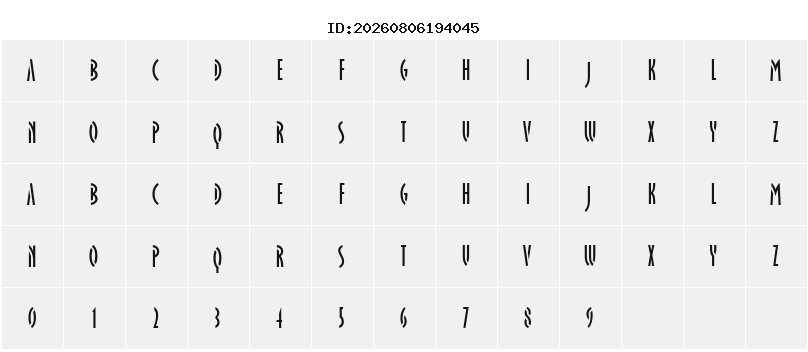
OklahomaSoft-Stencil Preview
• Font Name: OklahomaSoft-Stencil
• Full Font Name: OklahomaSoft-Stencil
• Version: Version 1.00 April 20, 2006, initial release
• Designer: SoftMaker Software GmbH
• Manufacturer: SoftMaker Software GmbH
About OklahomaSoft-Stencil.ttf
OklahomaSoft-Stencil.ttf is a modern, elegant sans-serif font designed for ultimate readability and visual harmony. Perfect for branding, headlines, web design, and print materials.